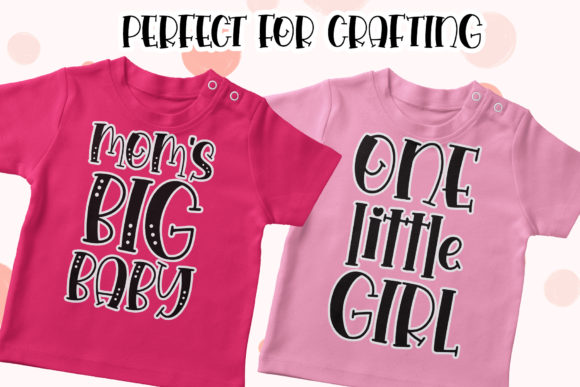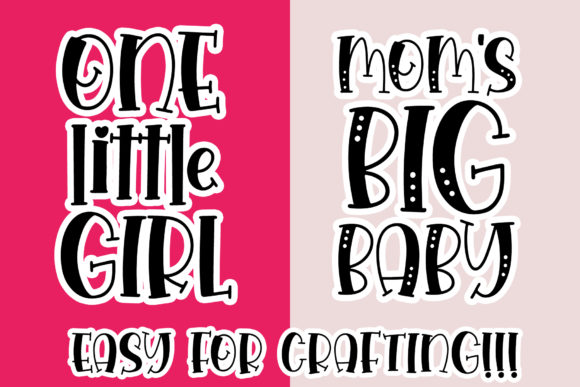
Bubble Pink Font
db-ku.com - Script & Handwritten -- Bubble Pink is a spectacular handwritten font. Incredibly versatile, this font fits a wide pool of designs, elevating them to the highest levels. Add this font to your favorite creative ideas and notice how it makes them come alive!